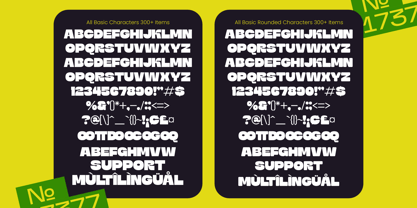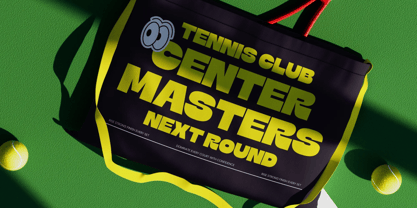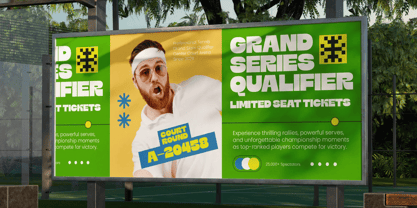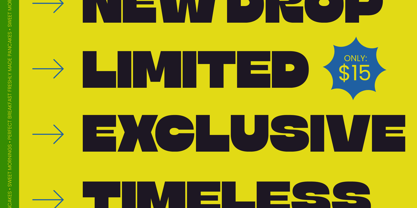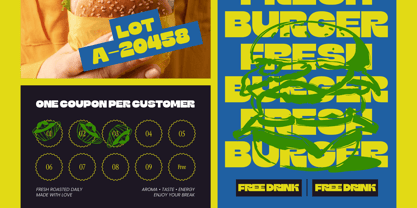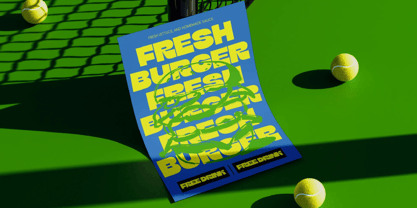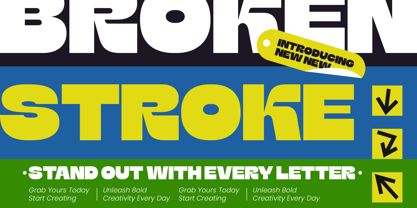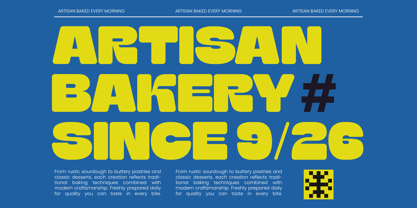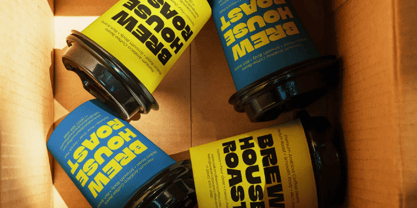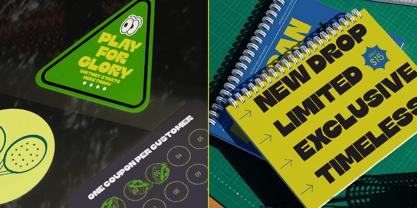
Broken Stroke
by Timelesstype Studio
The Broken Stroke Font Family was designed by Heru Utama Putra and published by Timelesstype Studio. Broken Stroke contains 2 styles and family package options. More about this family
Command attention and redefine visual strength with the powerful Broken Stroke. This typeface is a masterclass in high-impact display design, perfect for making an unforgettable editorial statement.
Inspired by the raw aesthetics of industrial signage and modern architectural voids, this font captures the essence of controlled chaos. It bridges the gap between structured geometric forms and intentional fragmentation, creating a visual rhythm that is both jarring and harmonious.
Radiating a sense of urban sophistication, this editorial font provides an undeniable branding impact. It functions with the same visual gravity as luxury typography, providing a bold alternative to a high-contrast serif while maintaining a sleek, modern serif display aesthetic for contemporary projects.
Foundry: Timelesstype Studio